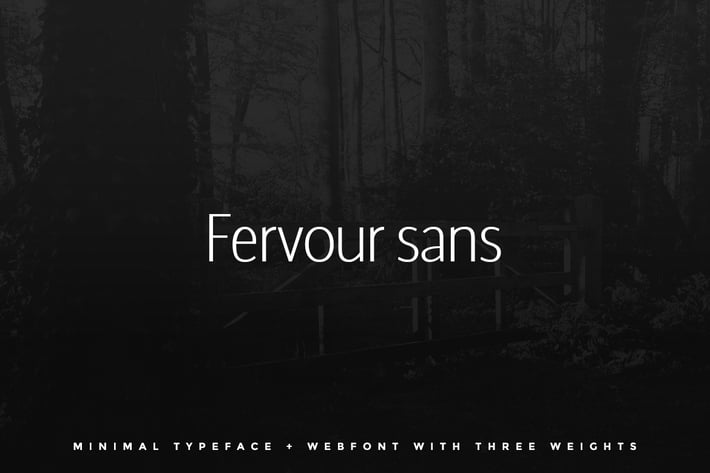
Fervour Sans Typeface + Web Fonts with 3 Weights
Fervour Sans Typeface
Fervour Sans is a modern and Minimal Sans Serif typeface with Three Weights, Fervour Sans can keep the minimalism at its level best and is a Perfect choice for, Display, headlines, paragraph, subheading, notes, Big Banners. Classic & Decorative Typography Designs.